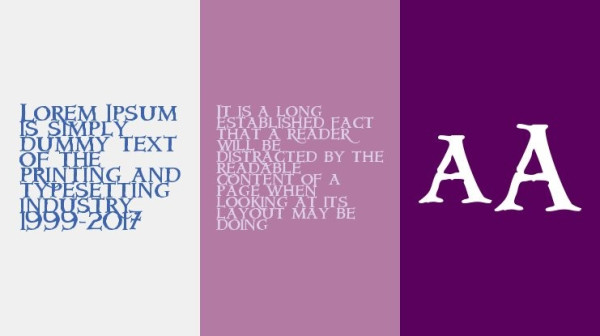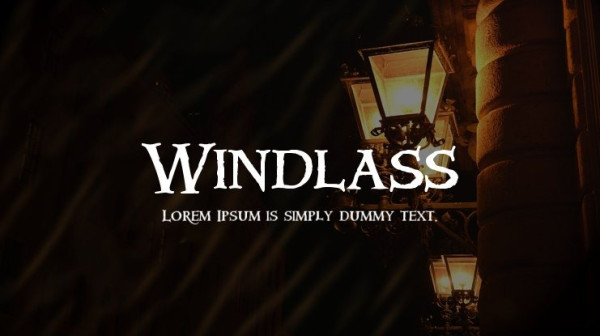
Windlass Font
Windlass Font, This font is perfect for stickers, retro projects, craft projects, shirts, svg designs, procreate designs, branding, blogs, logos, invitations and more!